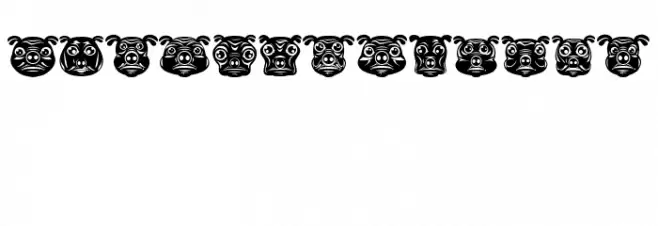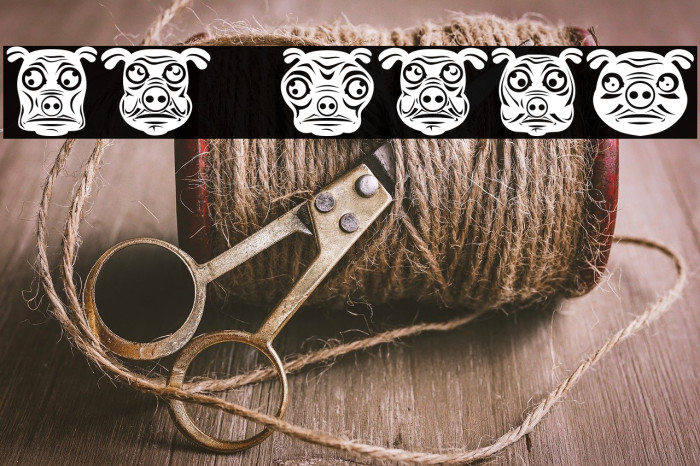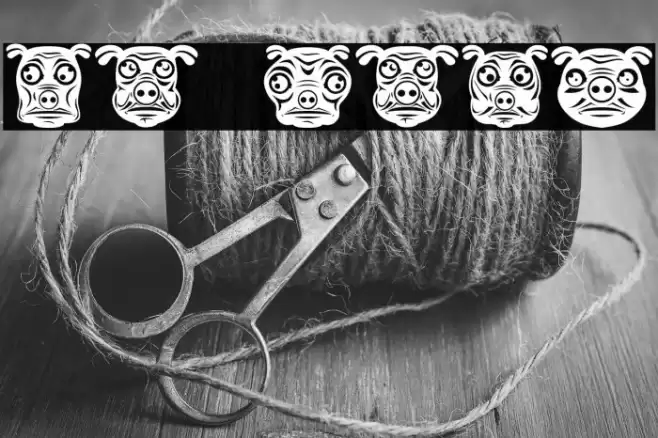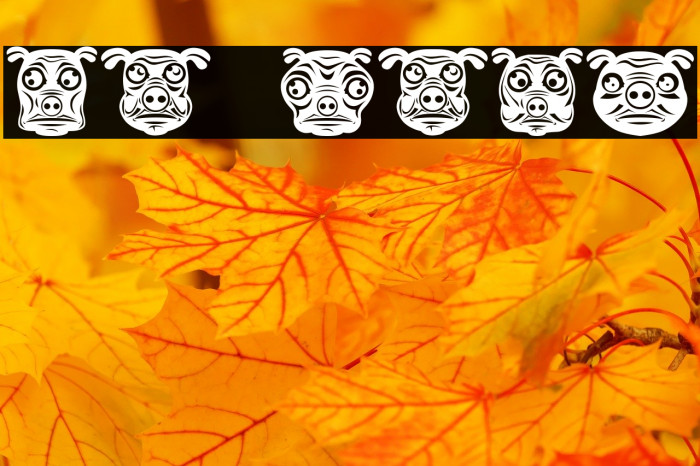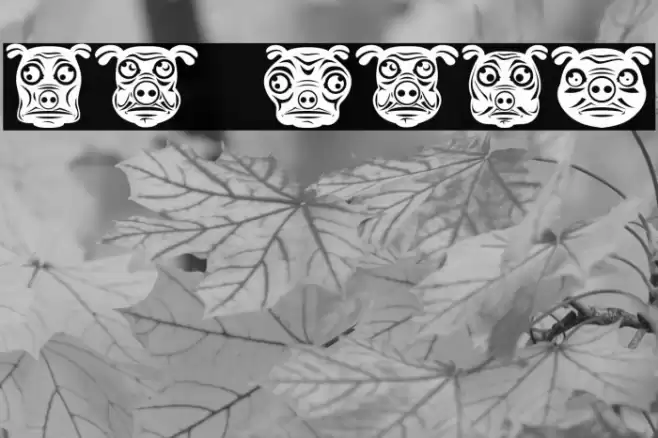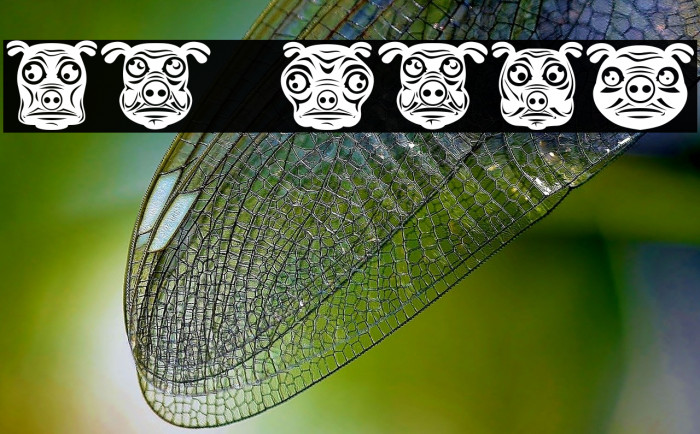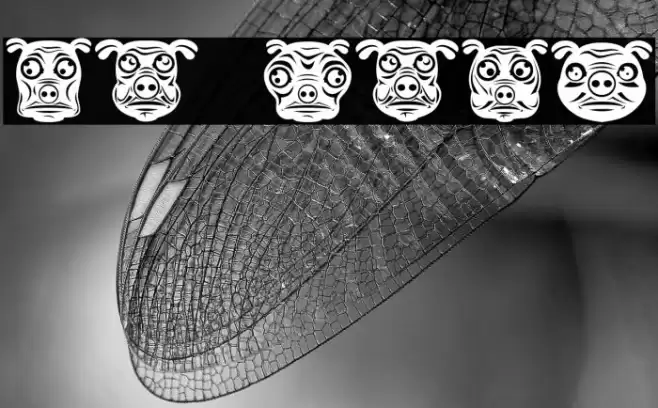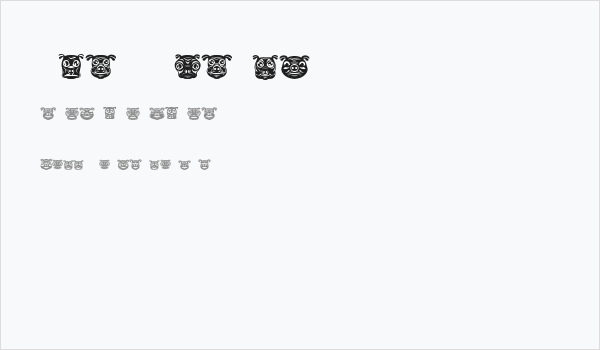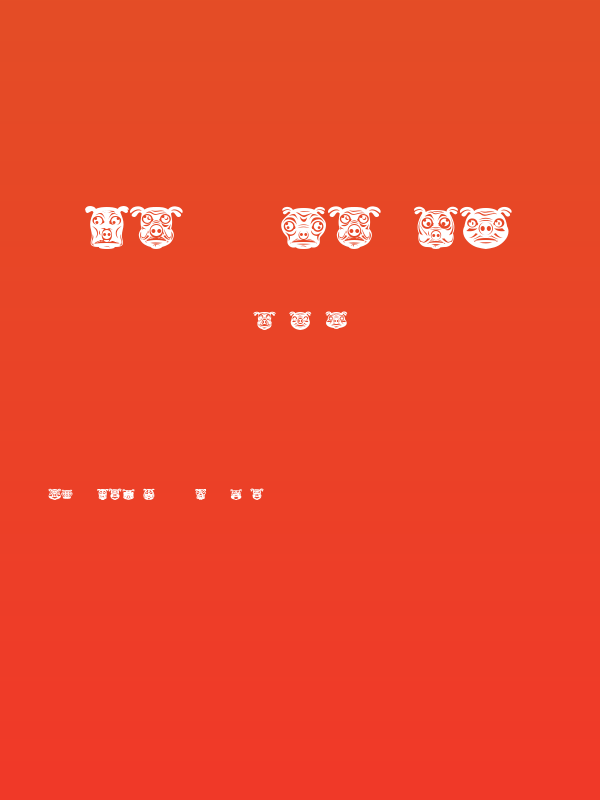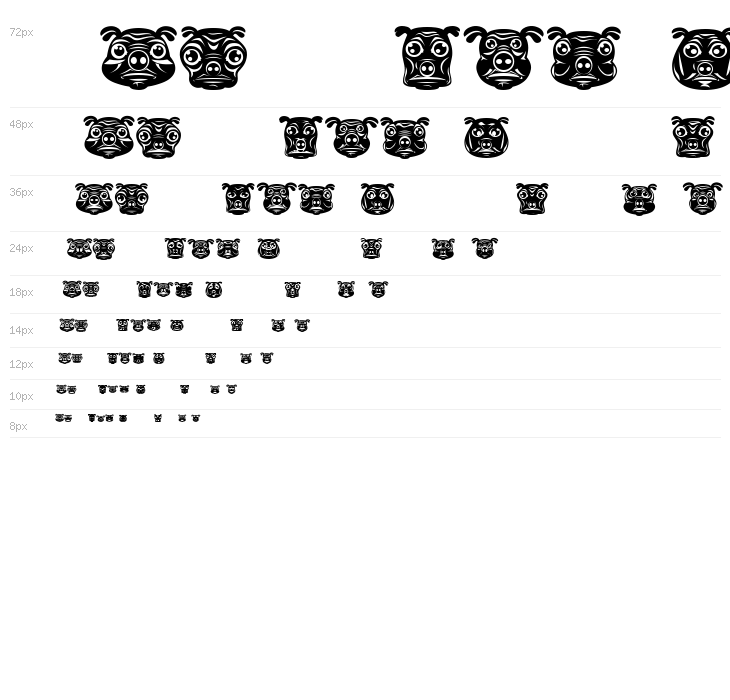
Pigs Regular Font
Pigs Regular Description
This font is a playful and whimsical design featuring stylized pig faces as characters. Each character is uniquely crafted with intricate details, showcasing a variety of expressions and features. The design is bold and eye-catching, making it ideal for projects that require a fun and engaging visual element. The characters are evenly spaced, ensuring readability while maintaining a consistent aesthetic. This font is perfect for creative projects that aim to capture attention and convey a sense of humor or lightheartedness.
| Use Case | Logos, Headlines, Decorative elements |
| Proposed Projects | Ideal for children's books, playful branding, party invitations, and novelty items. |